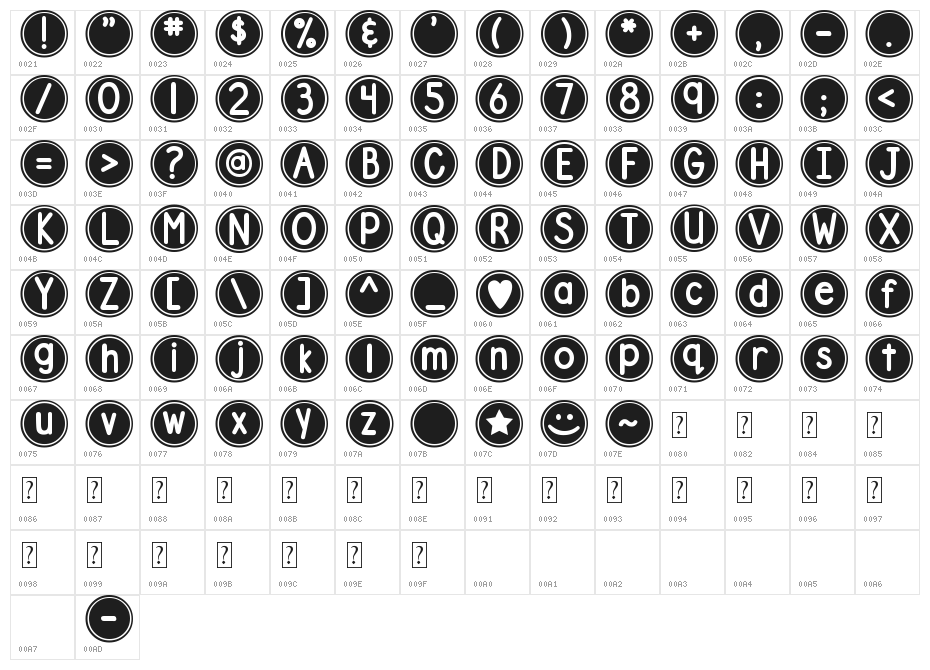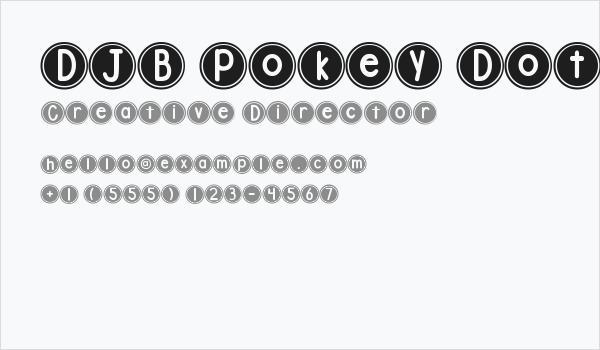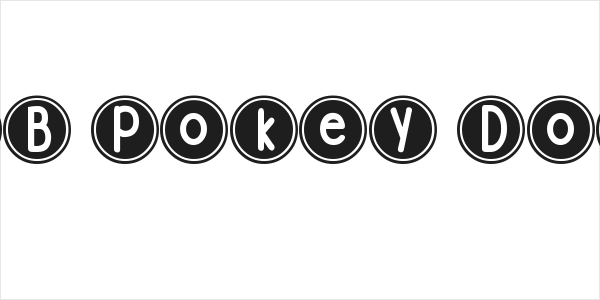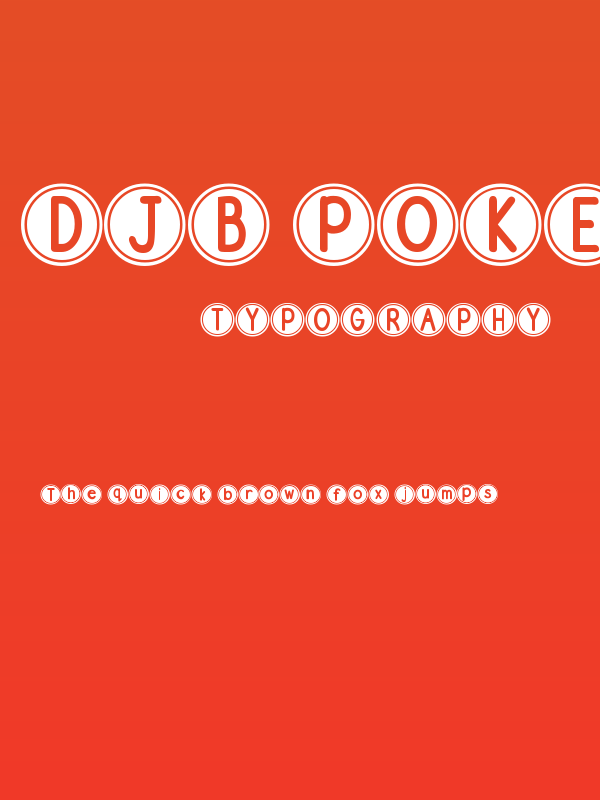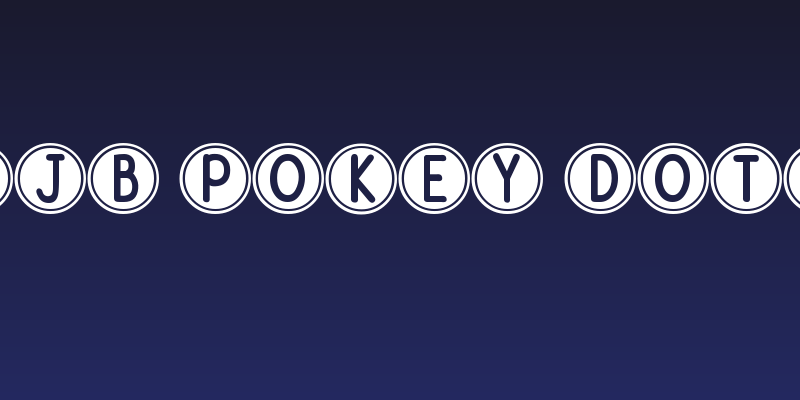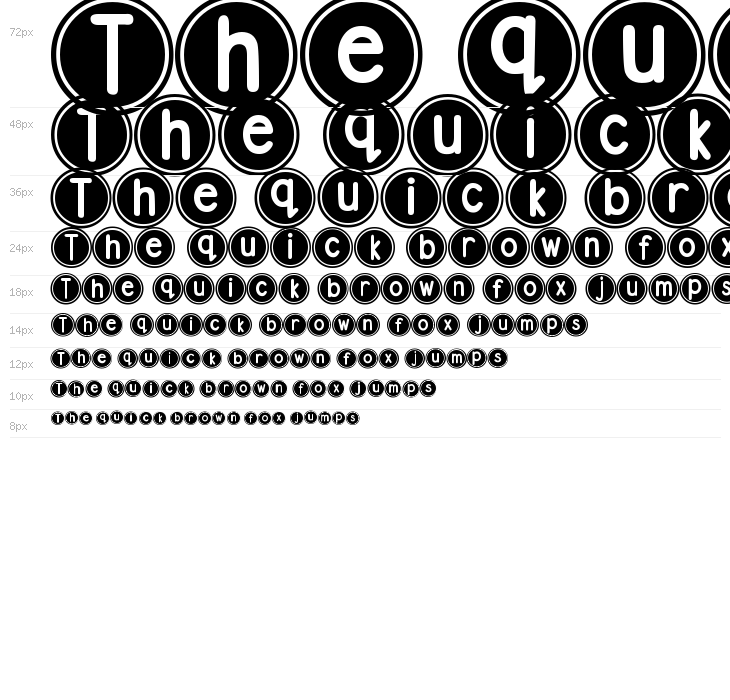
DJB Pokey Dots Font
DJB Pokey Dots Description
This playful and whimsical font features characters enclosed in circular borders, giving it a unique and eye-catching appearance. The letters are bold and rounded, with a consistent thickness that adds to its charm. The uppercase and lowercase letters, along with numbers and special characters, maintain a uniform style that is both fun and approachable. The font's design is reminiscent of playful, childlike themes, making it ideal for projects that require a touch of creativity and lightheartedness. Its distinct style ensures readability while adding a decorative element to any text.
| Use Case | Headlines, Logos, Decorative Text |
| Proposed Projects | Ideal for children's books, playful invitations, party decorations, and creative branding. |